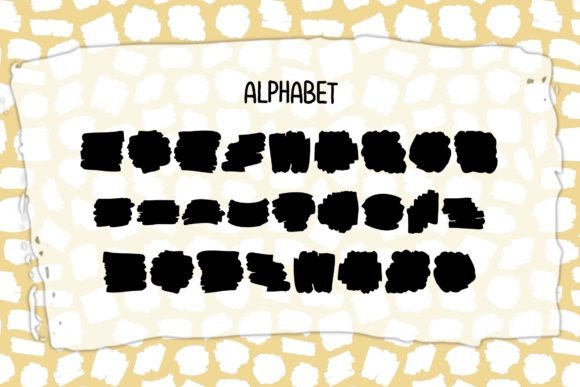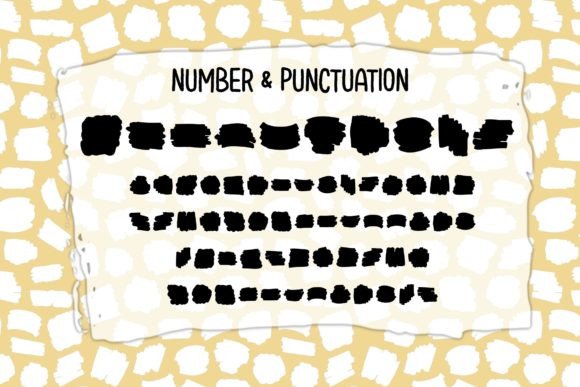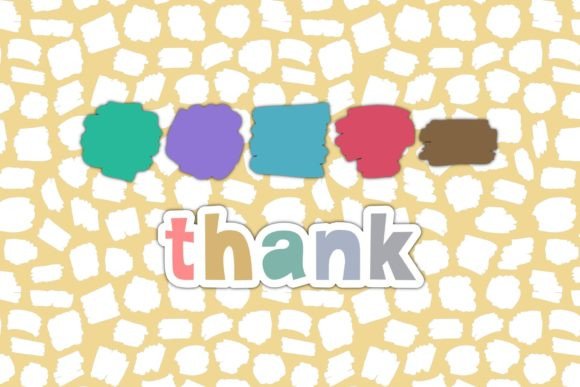
Introducing Brush On Font: The Ultimate Dingbat for Creative Projects
Are you a designer, crafter, or DIY enthusiast looking for a unique and playful font to add a personal touch to your projects? Look no further than Brush On Font, a funny and versatile dingbat font that’s perfect for a wide range of creative applications. In this article, we’ll explore the features and benefits of Brush On Font, and show you how to make the most of this exciting new font in your designs.
What is Brush On Font?
Brush On Font is a dingbat font that features a collection of playful and whimsical brush-stroke designs. The font is made up of a range of fun and quirky symbols, including letters, numbers, and punctuation marks, all created with a distinctive brush-on style that’s sure to add a touch of personality to your projects.
What Can I Use Brush On Font For?
Brush On Font is incredibly versatile, and can be used for a wide range of creative projects, including:
- Logos and branding: Add a playful touch to your logos and branding with Brush On Font’s unique and eye-catching designs.
- Wall art and signs: Create stunning wall art and signs with Brush On Font’s bold and colorful designs.
- Cards and invitations: Add a personal touch to your cards and invitations with Brush On Font’s fun and whimsical designs.
- Art prints: Create beautiful art prints with Brush On Font’s intricate and detailed designs.
- T-shirts and apparel: Design custom t-shirts and apparel with Brush On Font’s bold and eye-catching designs.
- Coloring pages: Create fun and interactive coloring pages with Brush On Font’s playful designs.
Why Choose Brush On Font?
So why choose Brush On Font for your creative projects? Here are just a few reasons:
- Unique and playful designs: Brush On Font features a range of unique and playful designs that are sure to add a touch of personality to your projects.
- Versatile: Brush On Font can be used for a wide range of creative projects, from logos and branding to wall art and signs.
- High-quality: Brush On Font is a high-quality font that’s designed to produce crisp and clear results, even at small sizes.
Tips for Using Brush On Font
Here are a few tips for getting the most out of Brush On Font:
- Experiment with different colors: Brush On Font looks great in a range of colors, so don’t be afraid to experiment and find the perfect color for your project.
- Mix and match: Try mixing and matching different Brush On Font designs to create unique and eye-catching combinations.
- Use with other fonts: Brush On Font pairs well with a range of other fonts, so try using it with your favorite fonts to create interesting and dynamic text combinations.
Key Features of Brush On Font
- Fun and playful brush-stroke designs
- Unique and eye-catching letters, numbers, and punctuation marks
- Perfect for logos, wall art, signs, cards, art prints, t-shirts, and more
- High-quality font with crisp and clear results